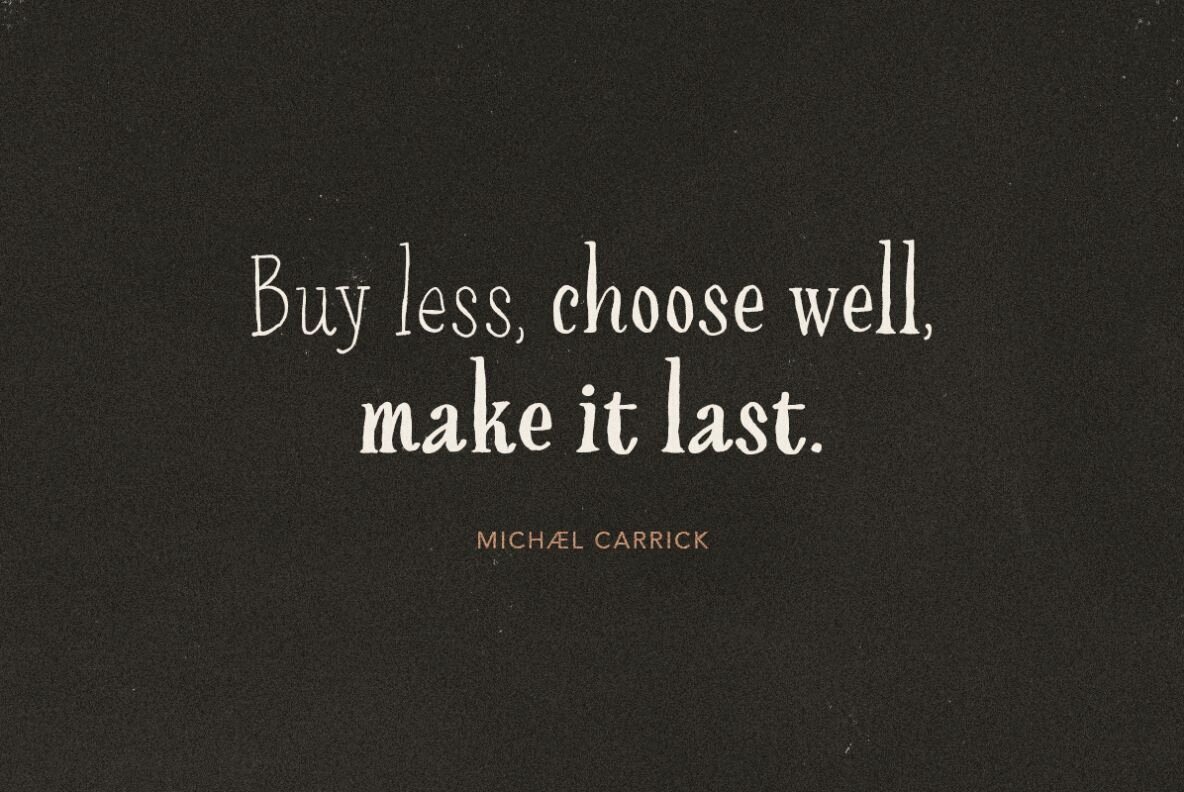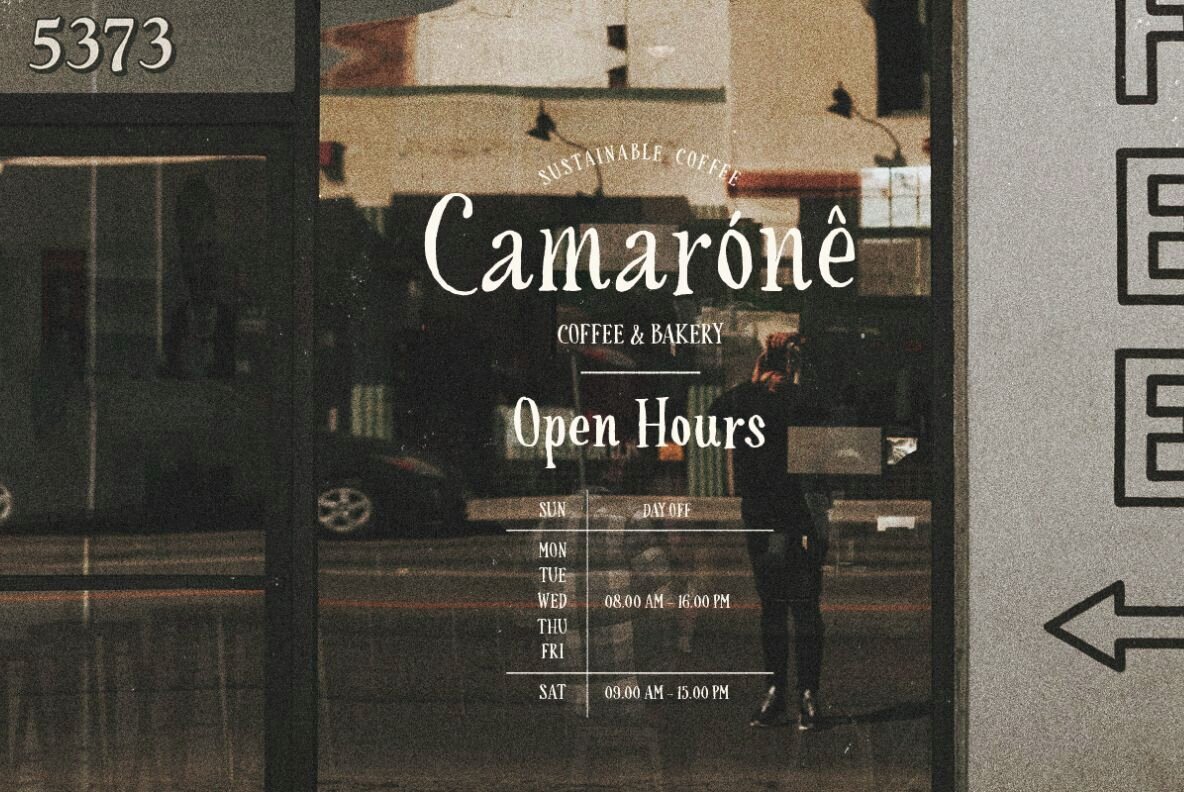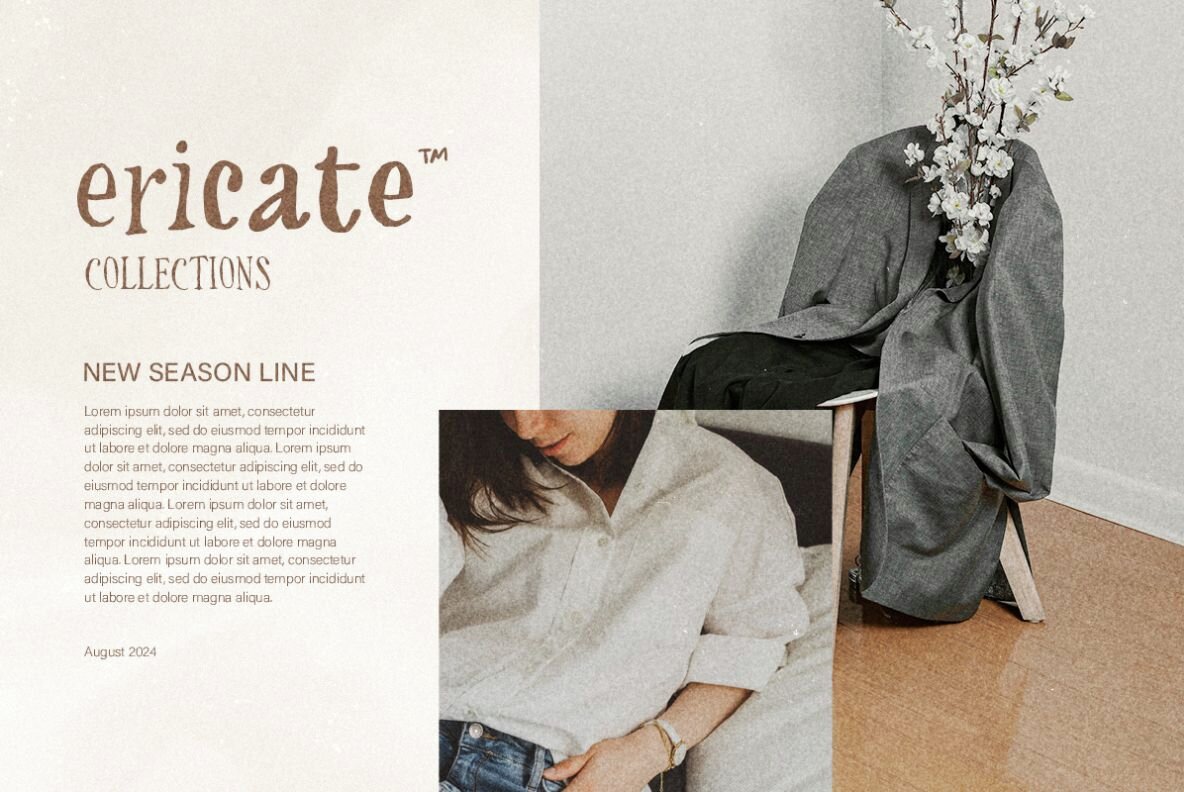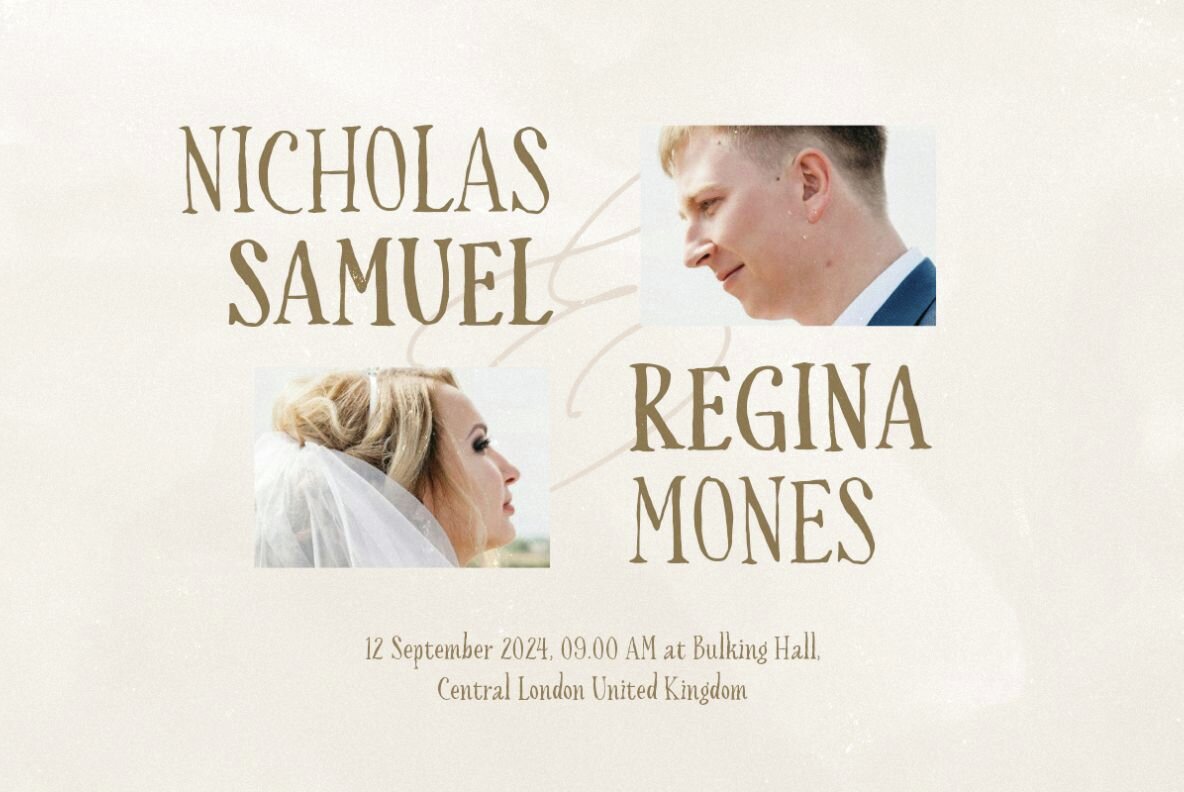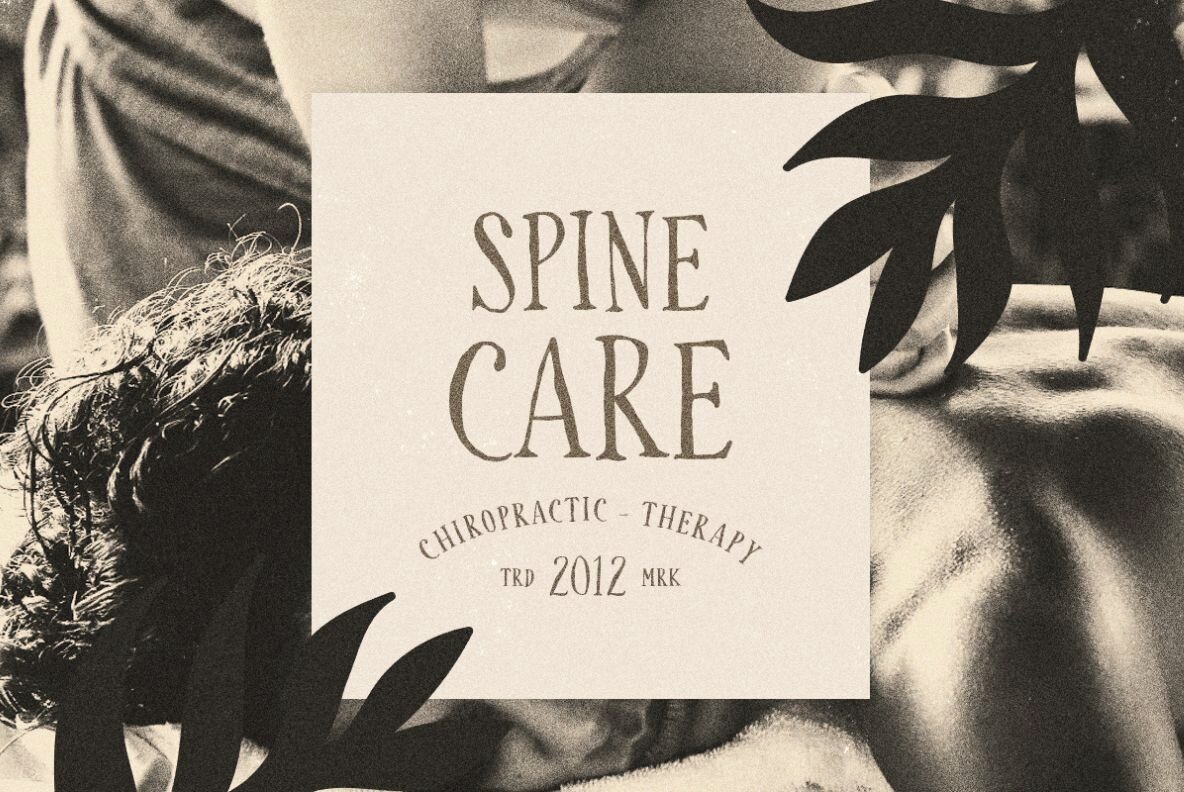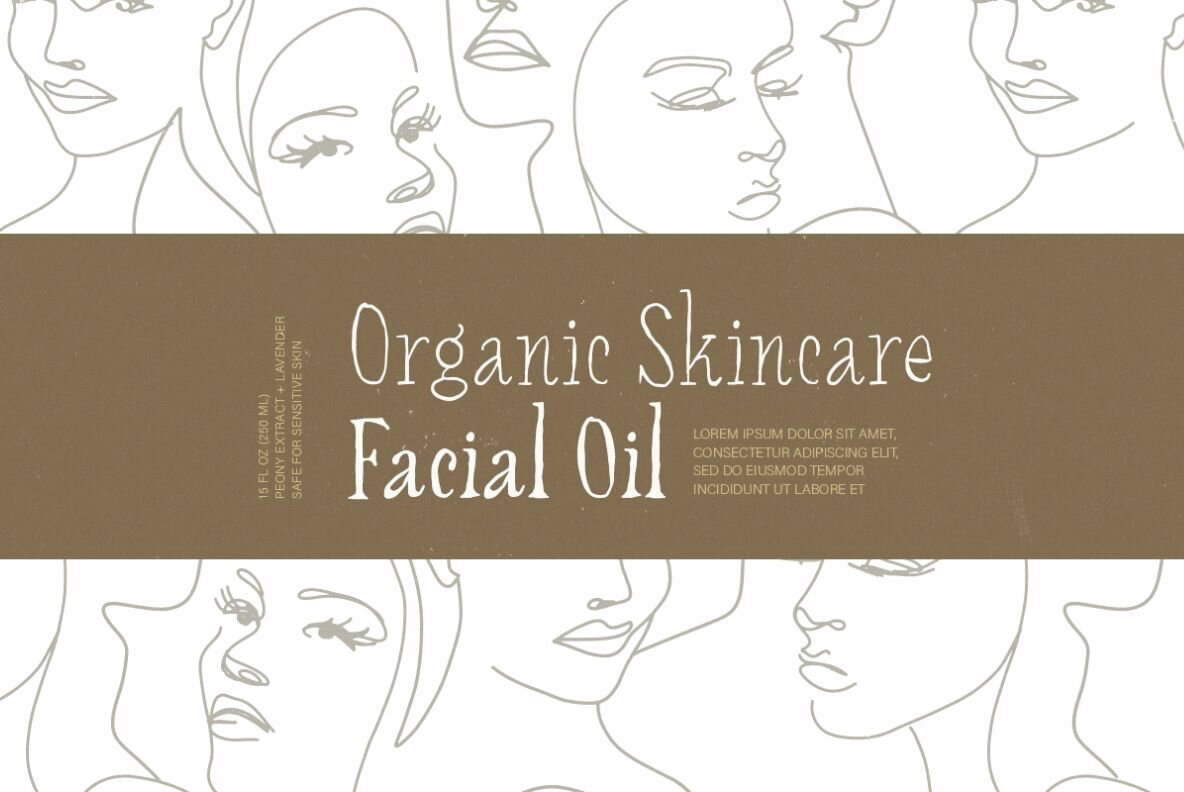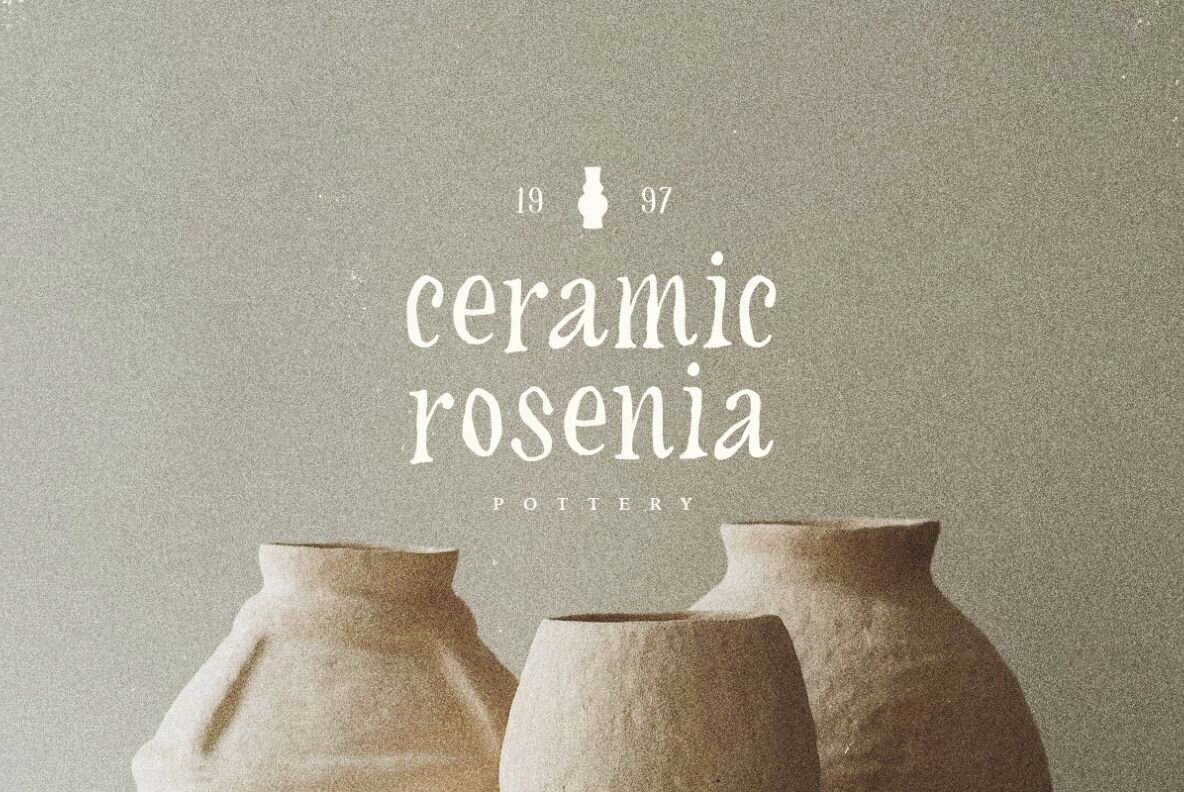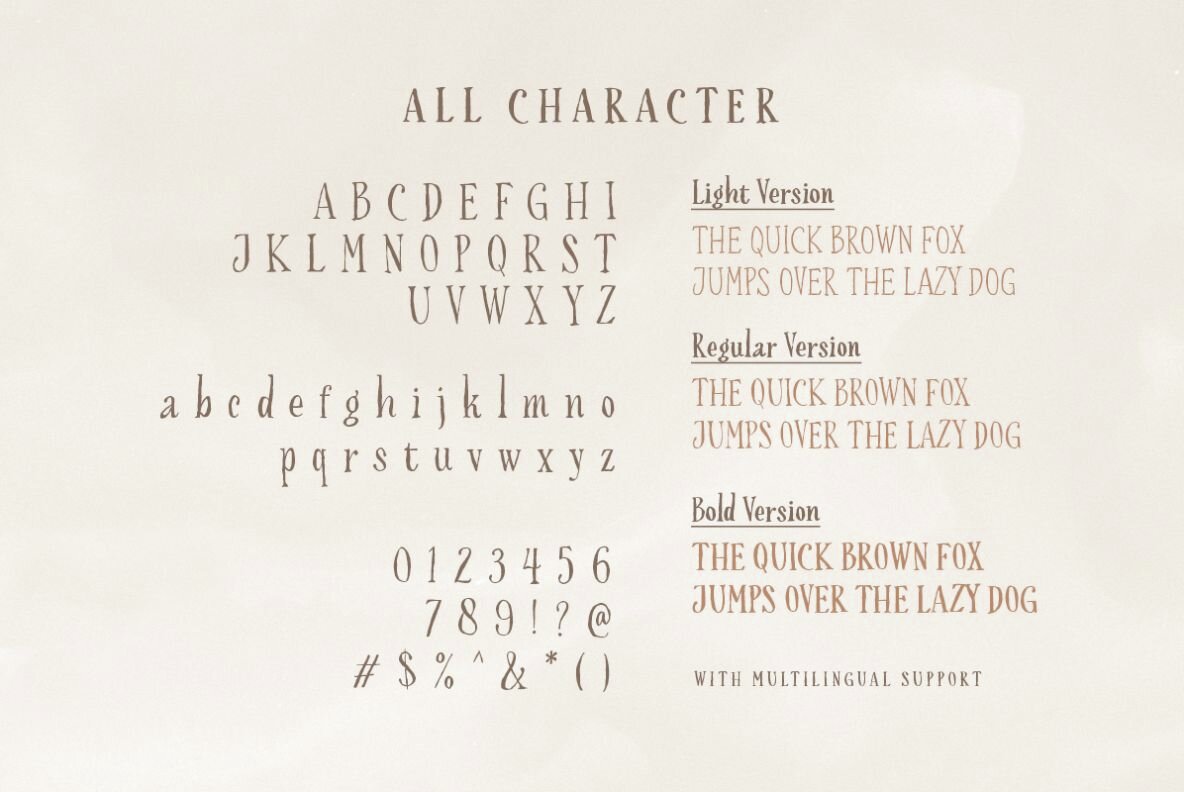
Manuscript is a hand-lettered sans serif family designed with a natural and organic aesthetic. This versatile font collection offers three weights: Light, Regular, and Bold. Perfect for an array of projects, Manuscript shines in branding, logo design, hand lettering, and quotes. Its handwritten style brings a unique, personal touch to any creative work.
Designed to be functional and flexible, Manuscript supports multilingual characters, numbers, and symbols. This feature-rich font family ensures your designs are accessible and visually engaging, regardless of the language or context. Whether you're crafting a sophisticated brand identity or an inspiring quote, Manuscript delivers a charming, handmade feel that enhances your work.